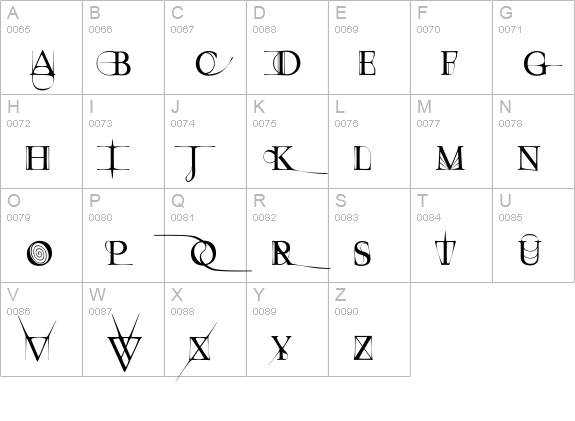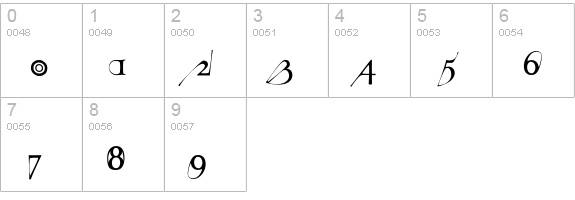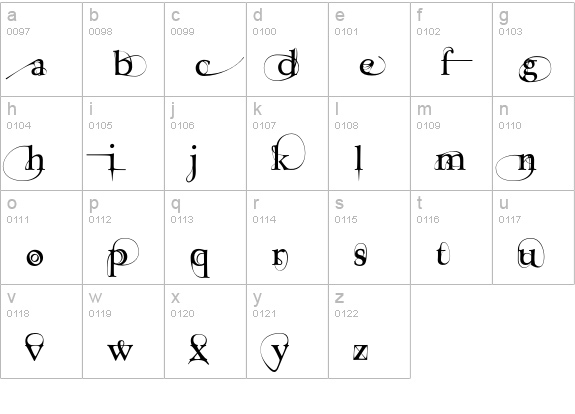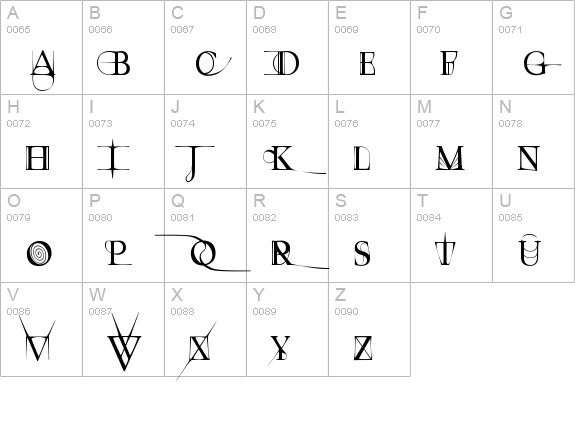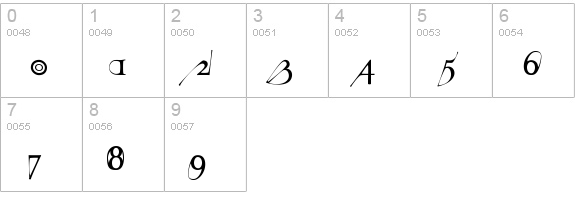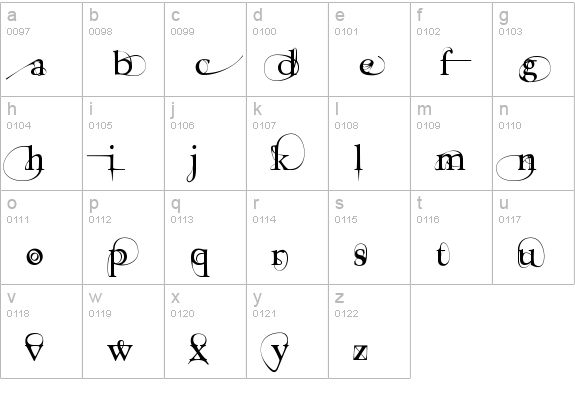
Tension Font Details
Introducing Tension font, a captivating typeface that exudes an air of intrigue and suspense. Its bold, sharp strokes command attention and effortlessly draw the eye, making it the perfect choice for any design project that aims to captivate and engage its audience. Tension font's unique and edgy style is sure to add a touch of drama to any text, whether it's for a movie poster, book cover, or even a logo. Its carefully crafted letterforms possess an air of mystery, effortlessly conveying a sense of tension and anticipation. But what sets Tension font apart from the rest is its remarkable versatility. From bold headlines to intriguing subheadings, this font effortlessly adapts to various design styles, ensuring that it remains impactful and eye-catching in any context. And the best part? Tension font is available for free download at FontsMarket.com. Yes, you read that right – this remarkable typeface is freely accessible, allowing designers, creators, and typophiles alike to unleash their creativity without breaking the bank. So, whether you're seeking to create a thrilling visual experience or simply want to add a touch of excitement to your designs, Tension font is the perfect choice. Download it now from FontsMarket.com and unlock a world of endless possibilities.